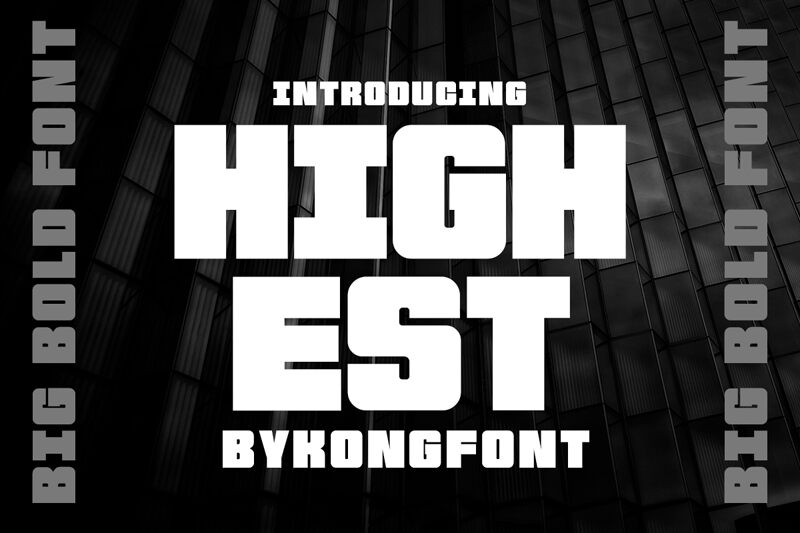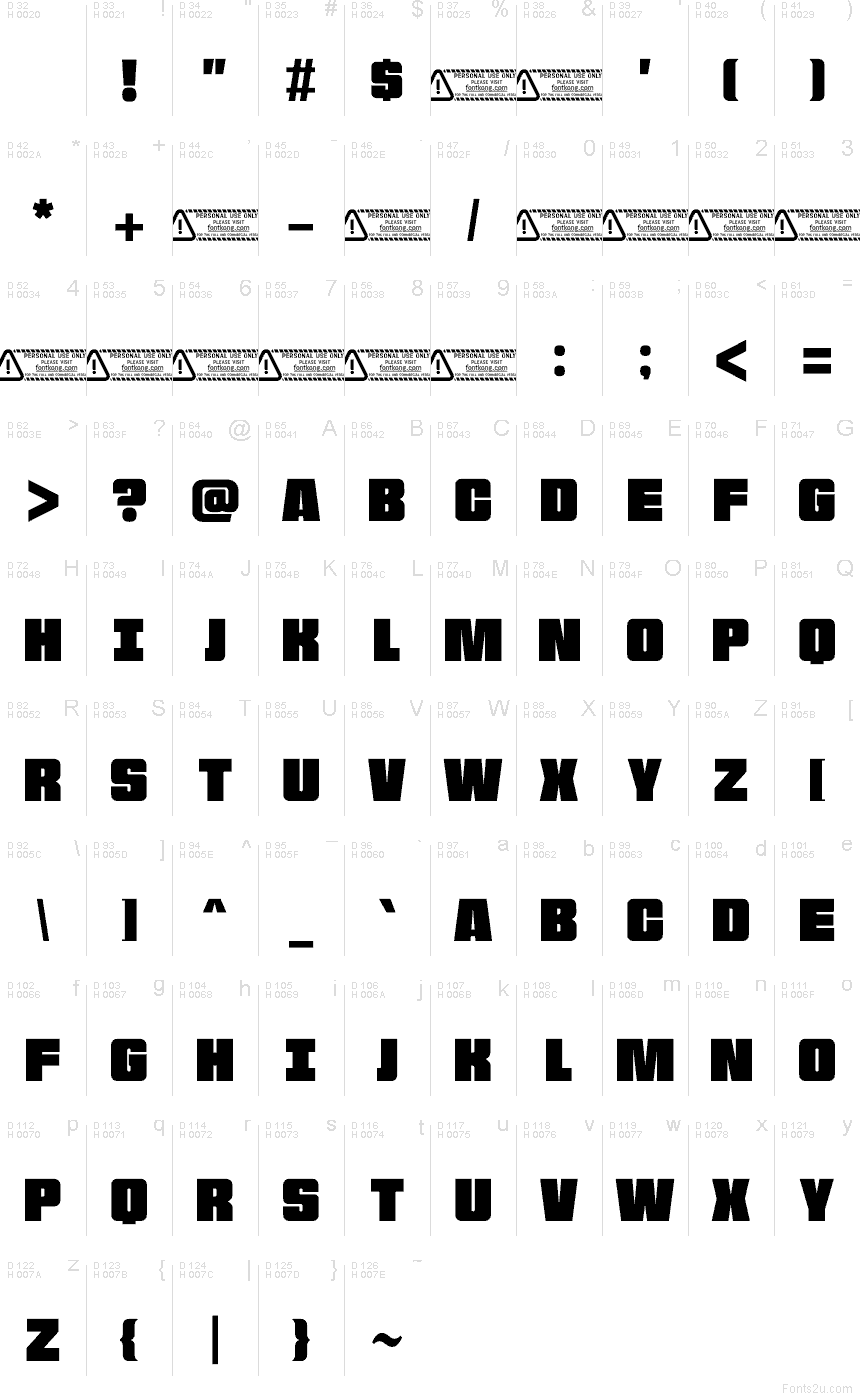
Highest font by Kong Font is a free bold square display sans typeface that hits like a headline at full volume. Heavy, blocky shapes with tight spacing and subtle rounded corners give it a solid, industrial feel, while the chopped inner curves add a sharp, modern edge. It reads like a solid wall of ink, making every word feel powerful, compressed, and unmissable.
Using Highest, this free font, you can build striking esports logos, sports posters, streetwear graphics, YouTube covers, gaming thumbnails, or bold product packaging that needs to shout from the shelf. It shines in oversized titles, so keep it big and pair it with a clean, light-weight sans serif for body text to let those chunky letters really punch through.